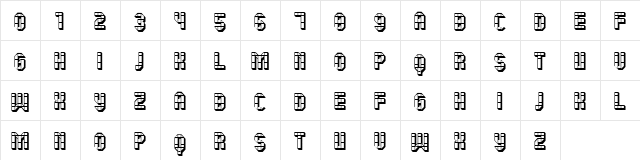
Saldo Hollow Regular
| Designer | Vladimir Nikoilic |
Design Context for Saldo Hollow Typeface
Saldo Hollow is a composed and adaptable typeface that performs quietly and consistently across a wide range of design contexts.